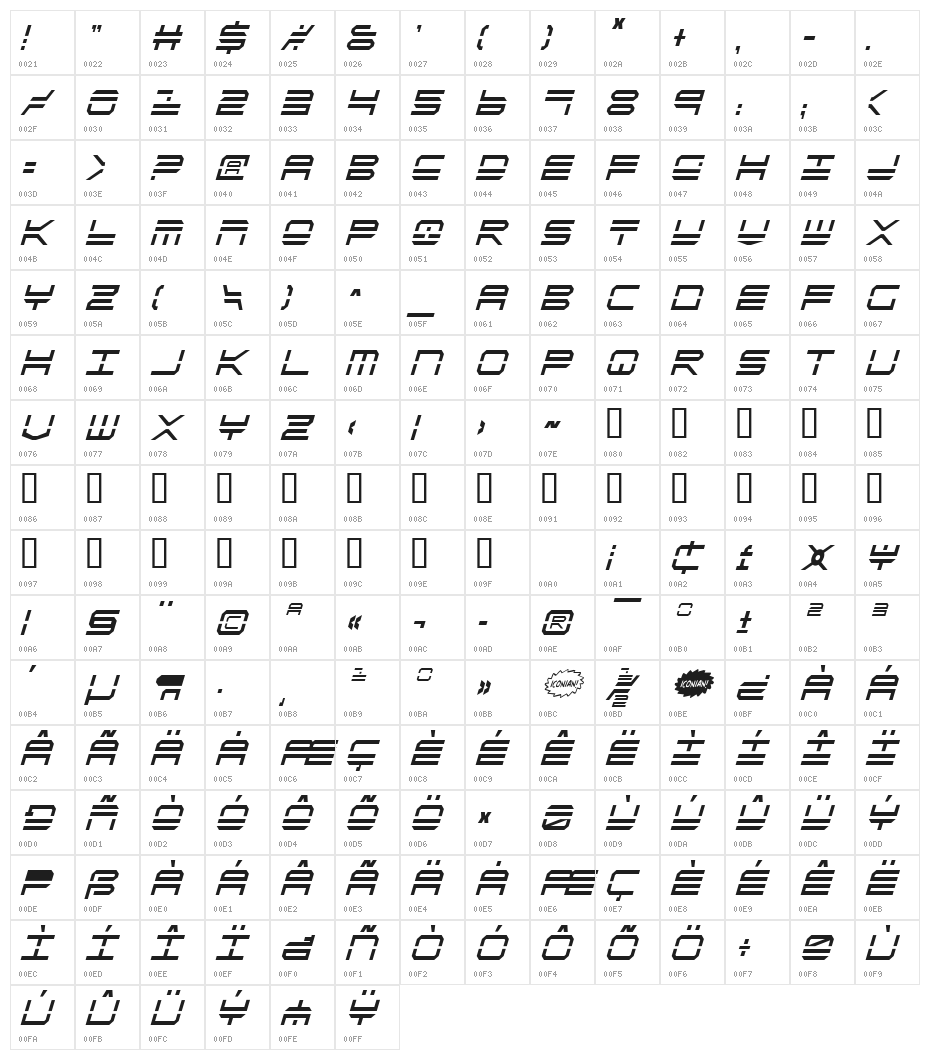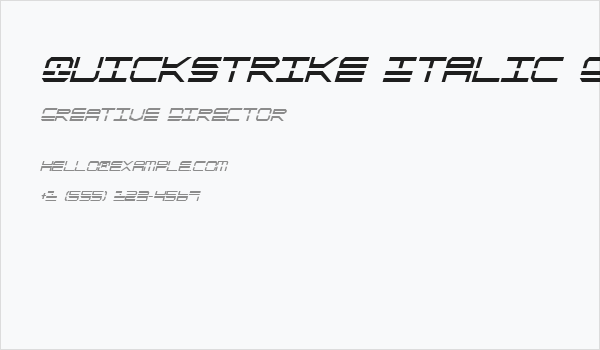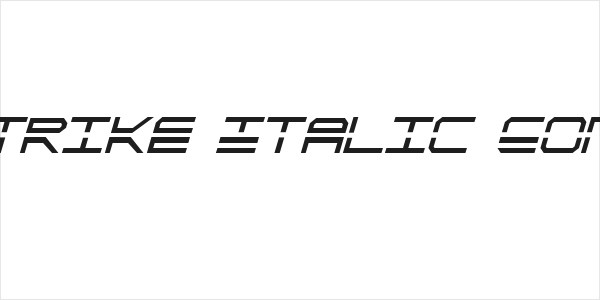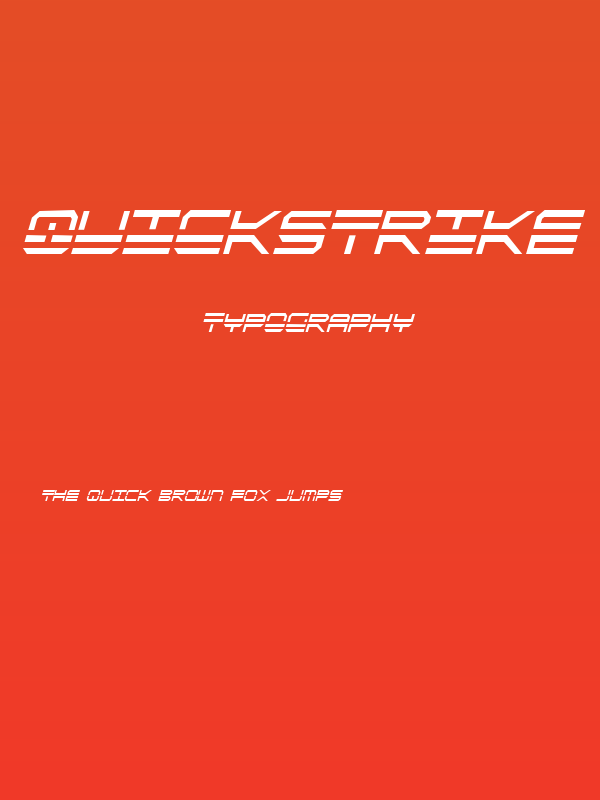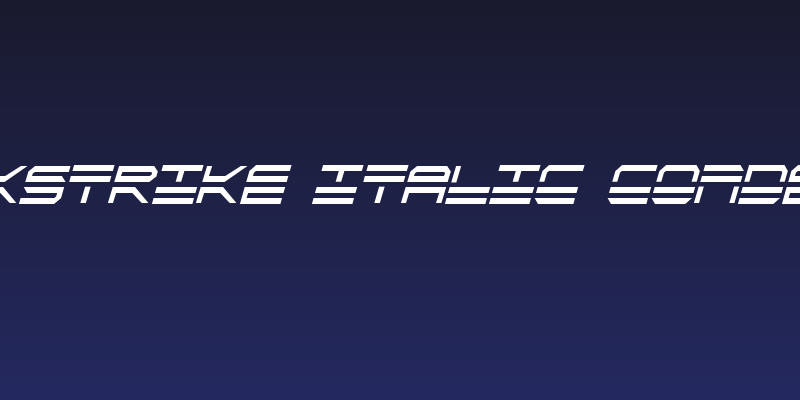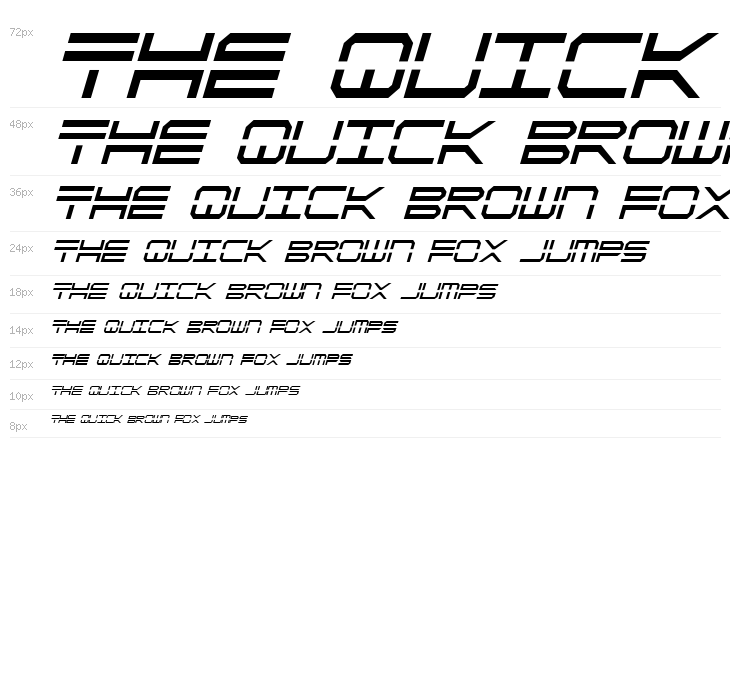
QuickStrike Italic Condensed Font
QuickStrike Italic Condensed Description
This font features a futuristic and dynamic design with a strong emphasis on angular lines and geometric shapes. The characters are italicized, giving a sense of motion and speed. The condensed width enhances its sleek and modern appearance, making it ideal for projects that require a bold and impactful look. The uppercase and lowercase letters maintain a consistent style, with sharp edges and a uniform stroke width. Numbers and special characters are designed to match the overall aesthetic, ensuring a cohesive visual experience.
Use CaseLogos, Headlines
Proposed ProjectsIdeal for tech-related branding, sports team logos, video game titles, and sci-fi movie posters.